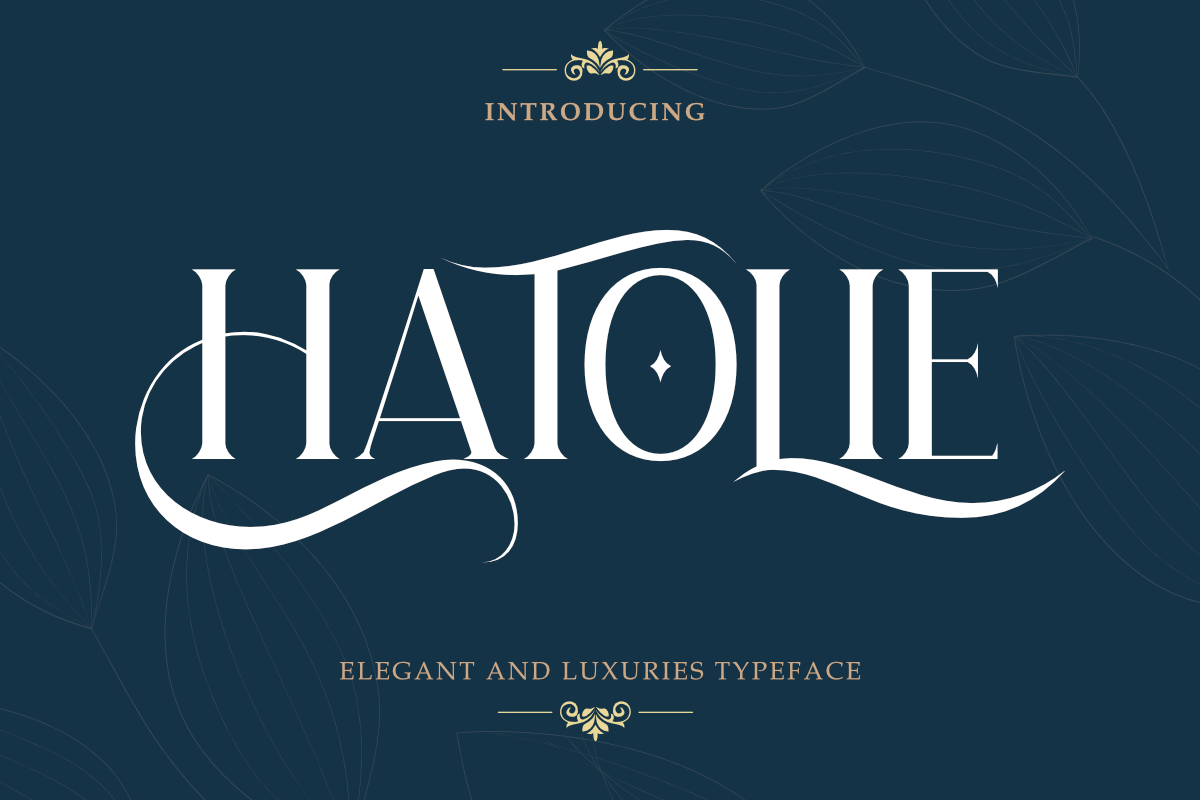
Hatolie - Elegant And Luxuries Font
Introducing New Font : Hatolie - Elegant And Luxuries Typeface
Hatolie will work perfectly for fashion, e-commerce brands, trend blogs, wedding boutiques or any business that wants to appear upscale and chic.
Hatolie also Suitable for Logo, greeting cards, quotes, posters, branding, name card, stationary, design title, blog header, art quote, typography, art, modern envelope lettering or book design, happening style like handdrawn design or watercolor design theme, craft design, any DIY project, book title, or any purpose to make your art/design project look pretty and trendy.